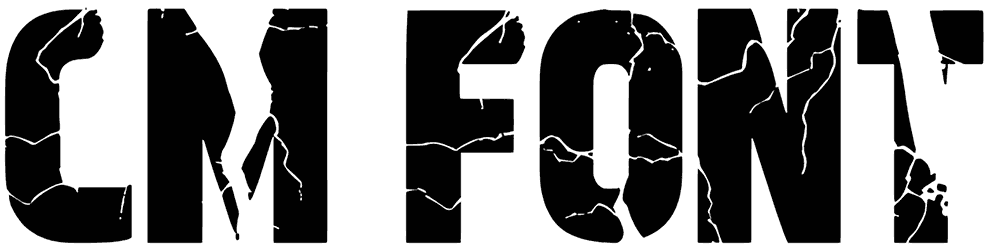
CM Font
Surprise your viewers with an urban and cool design and enjoy a catchy show. As a desert font, CM Font with bold and broken letters can be a unique choice for many creative projects, such as movie posters, covers, logos,…
Surprise your viewers with an urban and cool design and enjoy a catchy show. As a desert font, CM Font with bold and broken letters can be a unique choice for many creative projects, such as movie posters, covers, logos, and more. Even with no offer for lowercase, this eroded font consists of two sets of capitals that can make up for this lack.